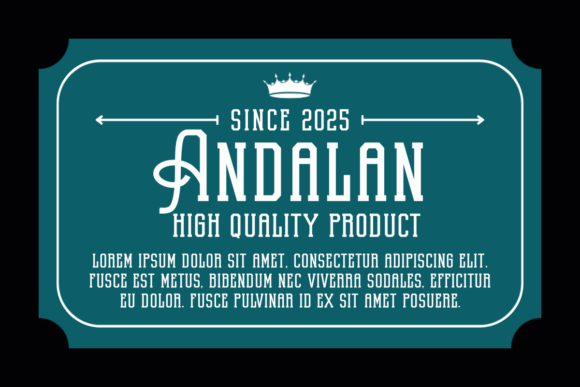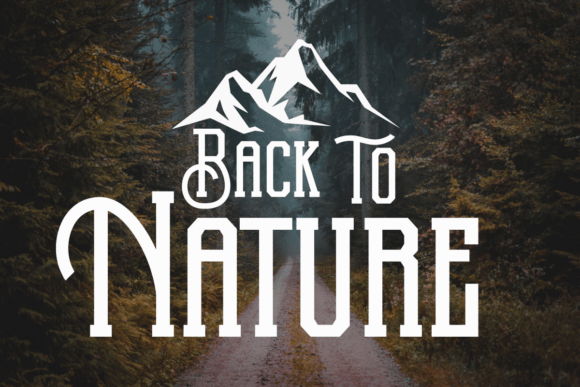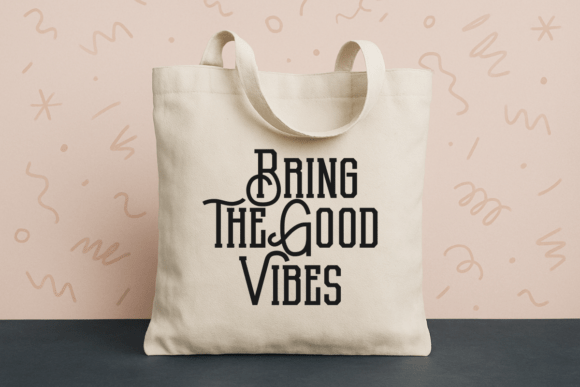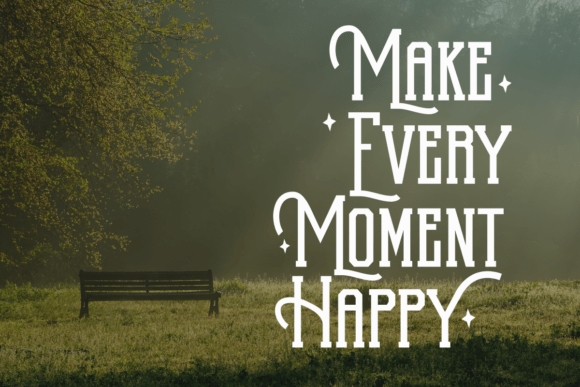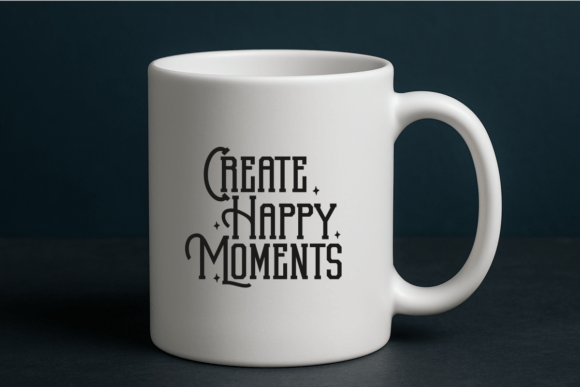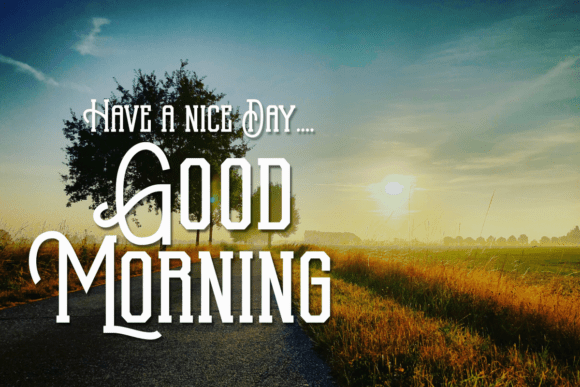
Introduction to North Athletico Font
As a designer, there’s nothing quite like the thrill of discovering a new font that perfectly captures the essence of your creative project. It’s the moment when your ideas start to come together, and you know you’ve found the perfect design resource to elevate your work. For me, that moment came when I stumbled upon the North Athletico Font – a classy, aesthetic slab serif font that exudes elegance and sophistication.
With its tall letterforms, clean slab serifs, and decorative swashes on the uppercase, the North Athletico Font is a true masterpiece of typography. Whether you’re looking to add a touch of classic style to your branding, packaging design, or quotes, this font is sure to impress. And the best part? It’s available for a high-quality, transparent background, making it perfect for a wide range of creative applications.
As a valuable design resource, the North Athletico Font is a must-have for any designer looking to add a touch of sophistication to their work. And with a free download available, you can start exploring the possibilities of this stunning font right away.
Key Features of North Athletico Font
- High-quality design resource ideal for creative projects, such as logos, branding, and typography.
- Unique, modern design that can add a touch of sophistication to any creative project, making it a valuable design resource.
- Comes in multiple font weights and styles, providing versatility for various design applications.
Honest Review: North Athletico Font
I recently had the opportunity to work with the North Athletico Font in a creative project, and I must say, it’s been a game-changer. This font is a high-quality design resource that’s perfect for anyone looking to add a touch of elegance and sophistication to their work.
- ✨ Can be used as a primary font for headers and titles
- ⚠️ Some users may find the font too ornate or busy for certain designs
Overall, I’m thoroughly impressed with the North Athletico Font. It’s a versatile and stylish design resource that’s sure to elevate any creative project. While it may have a few limitations, the benefits far outweigh the drawbacks. If you’re looking for a high-quality font to add some flair to your work, I highly recommend giving the North Athletico Font a try.
North Athletico Font is ideal for:
1. Designing sports-themed graphics and logos.
2. Creating promotional materials for events and campaigns.
3. Developing brand identities and marketing materials.